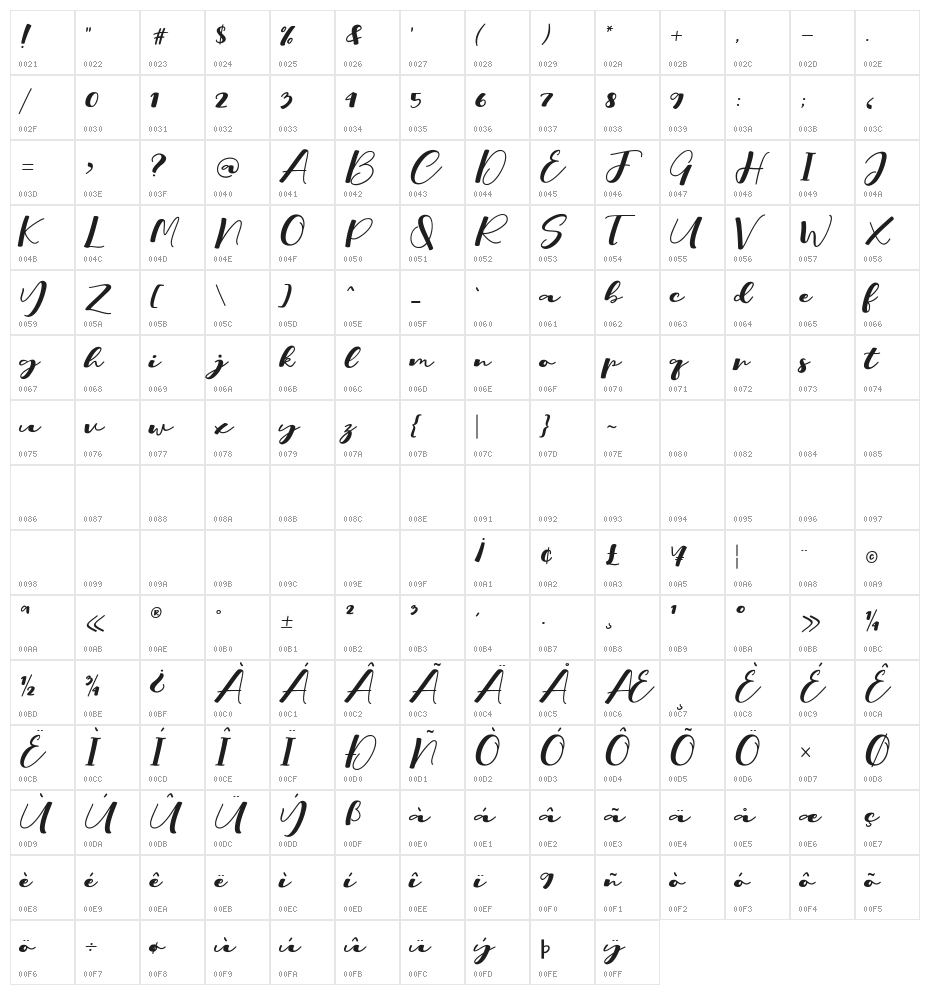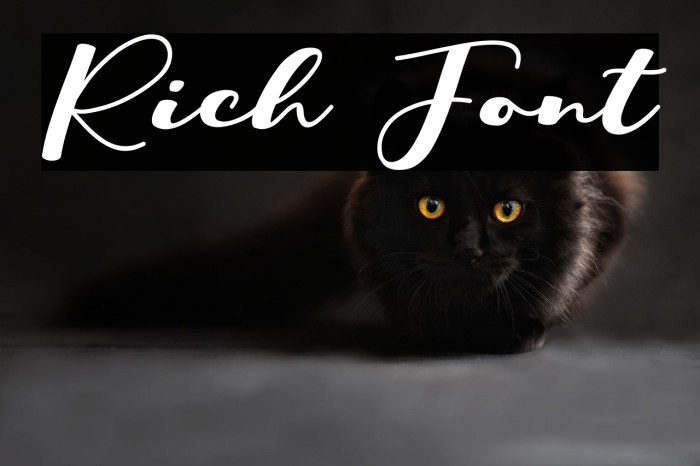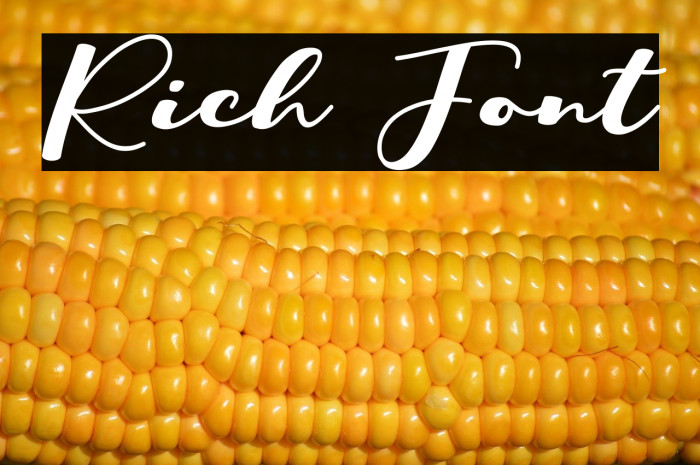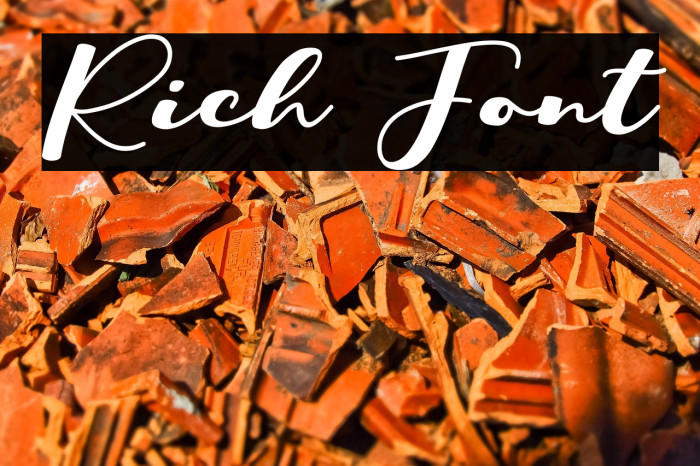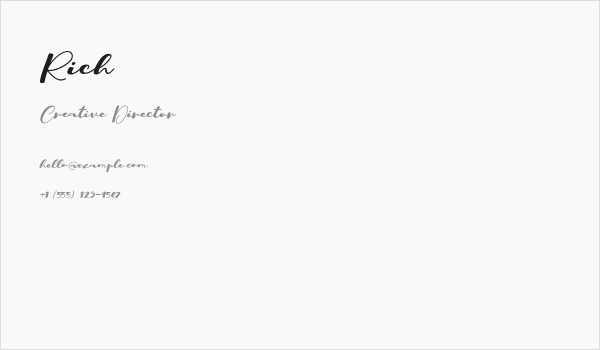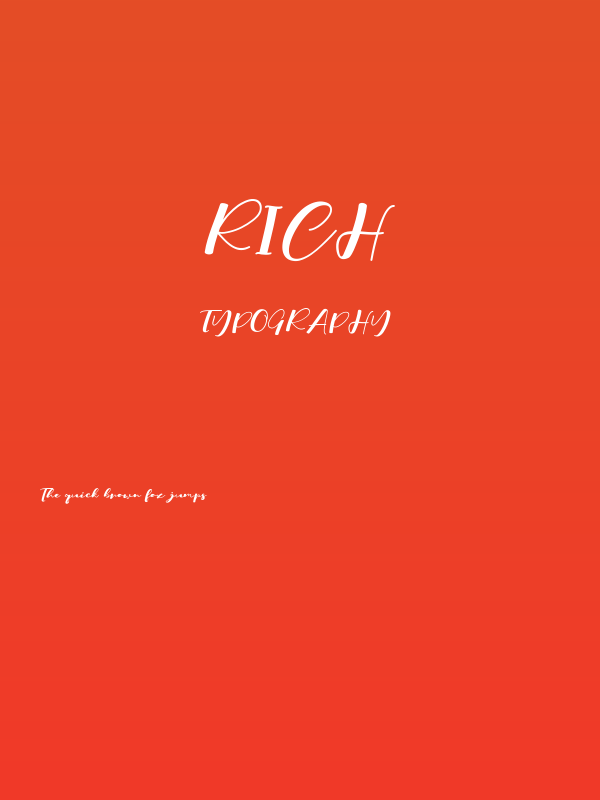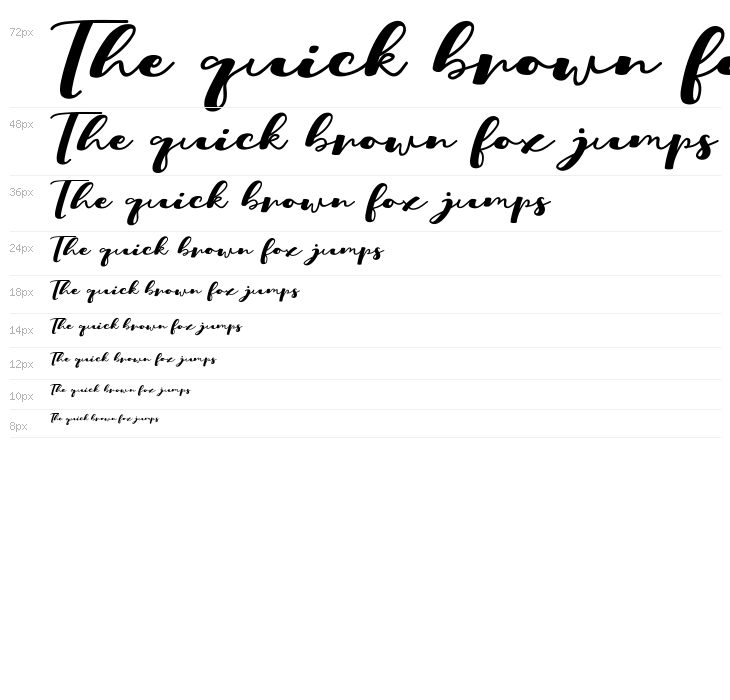
Rich Font
This font features a flowing, cursive style with a modern twist. The uppercase letters are elegantly connected, giving a sense of continuity and fluidity. The lowercase letters maintain a consistent stroke width, adding to the overall smooth appearance. The numerals are bold and slightly rounded, providing a strong visual presence. Special characters are creatively designed, fitting seamlessly with the rest of the font. This script font exudes a sense of sophistication and charm, making it ideal for projects that require a personal touch.
| Use Case | Logos, Headlines, Invitations |
| Proposed Projects | Ideal for wedding invitations, greeting cards, branding, and logo design. |